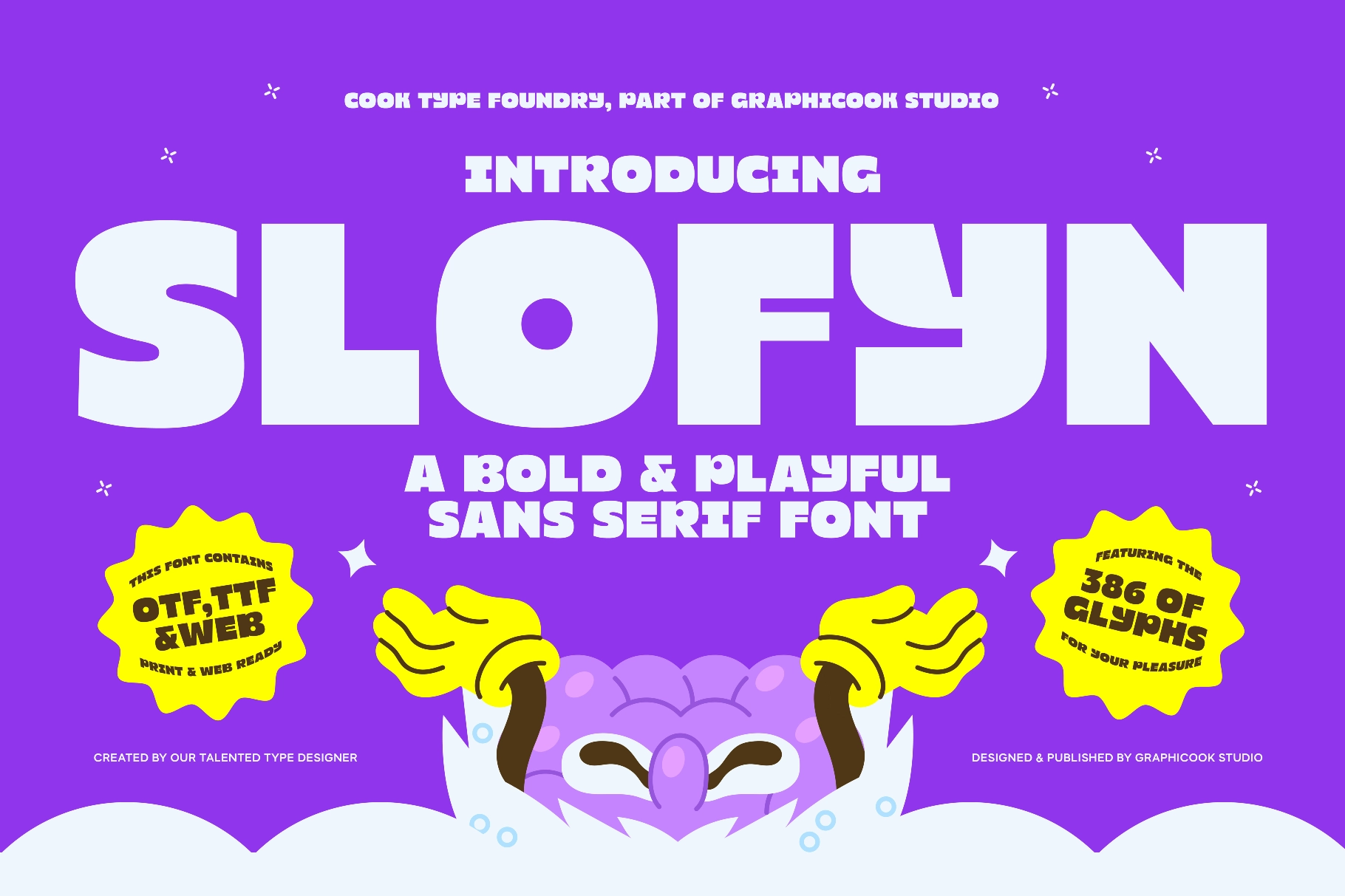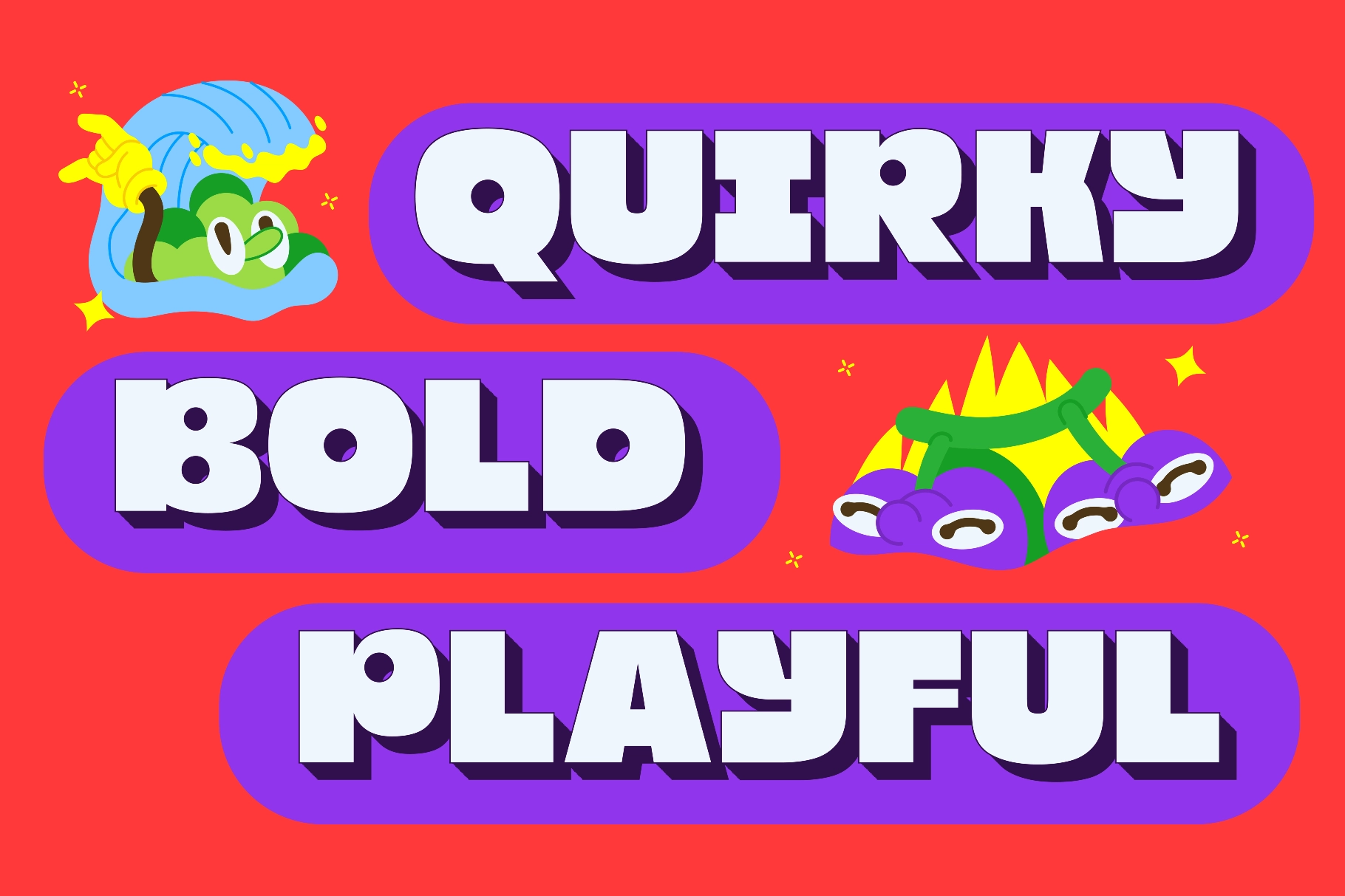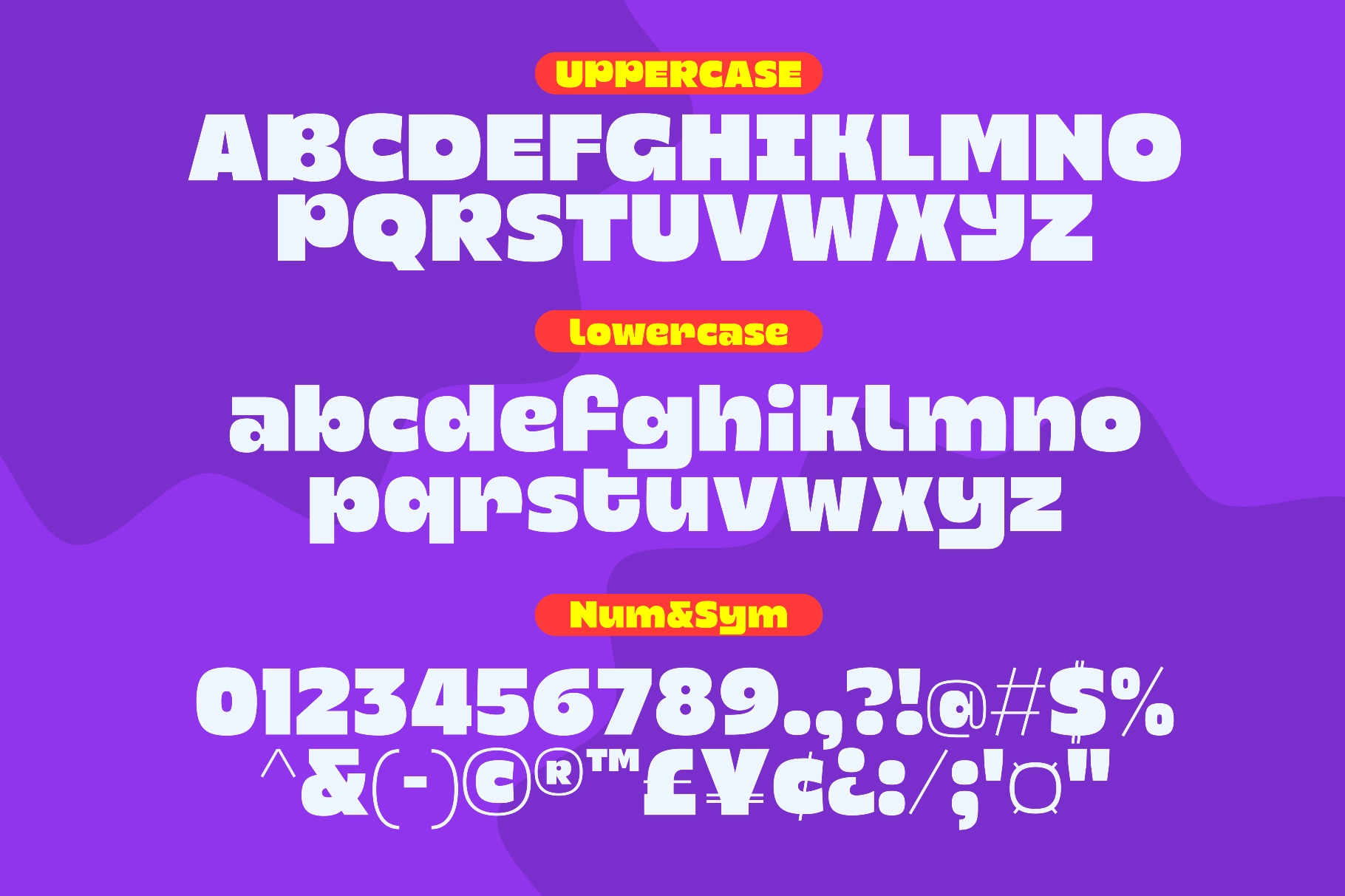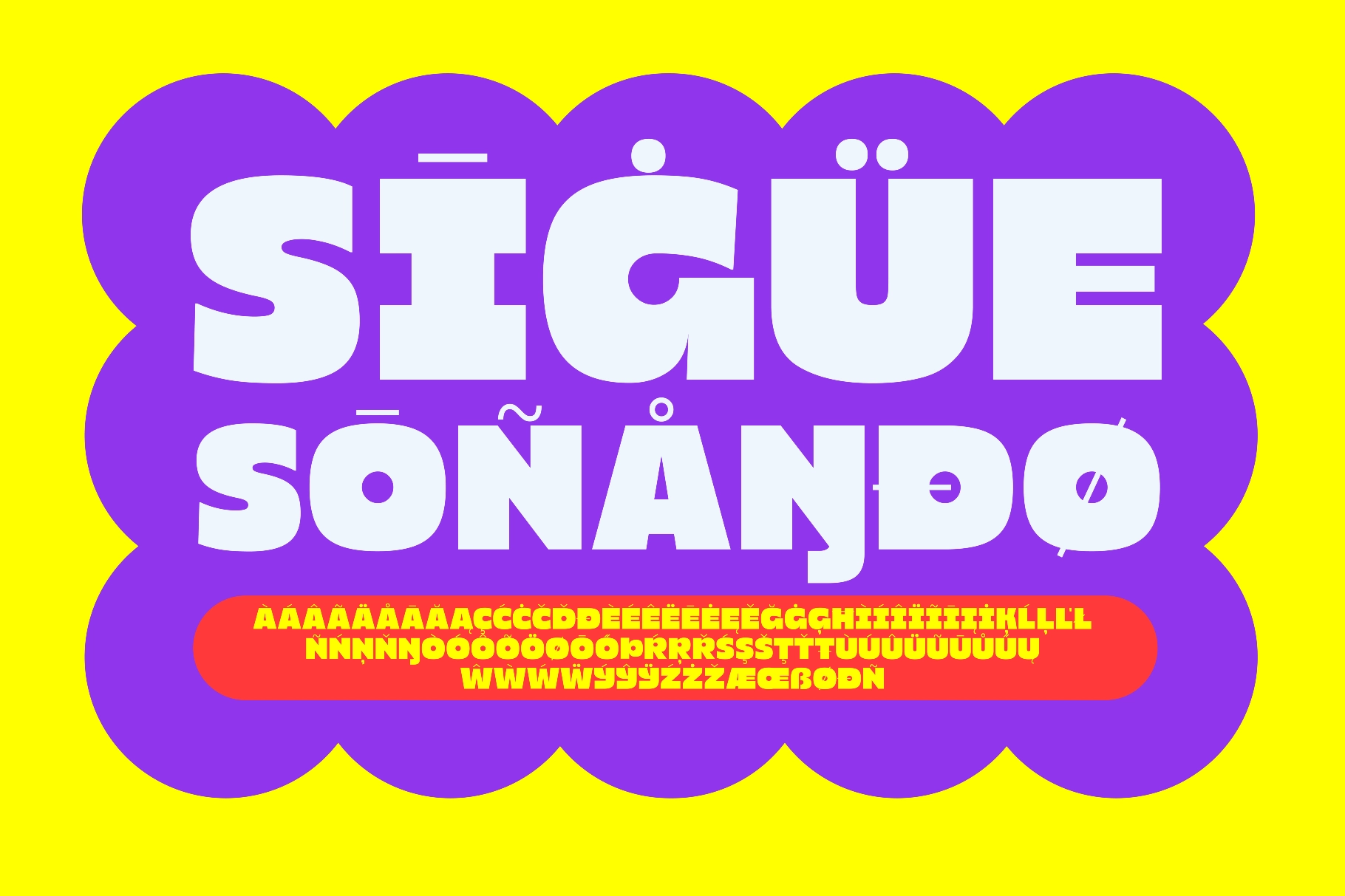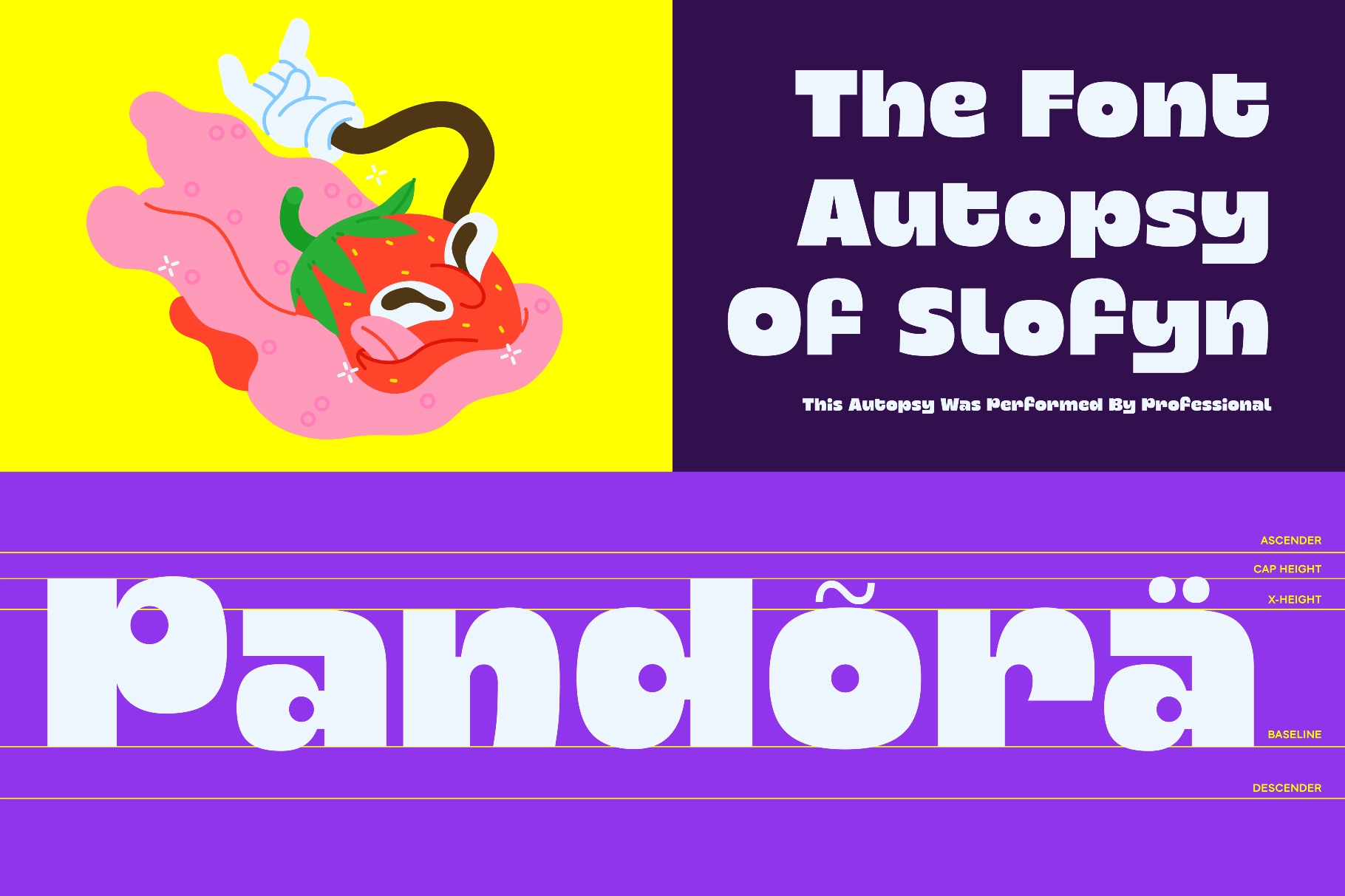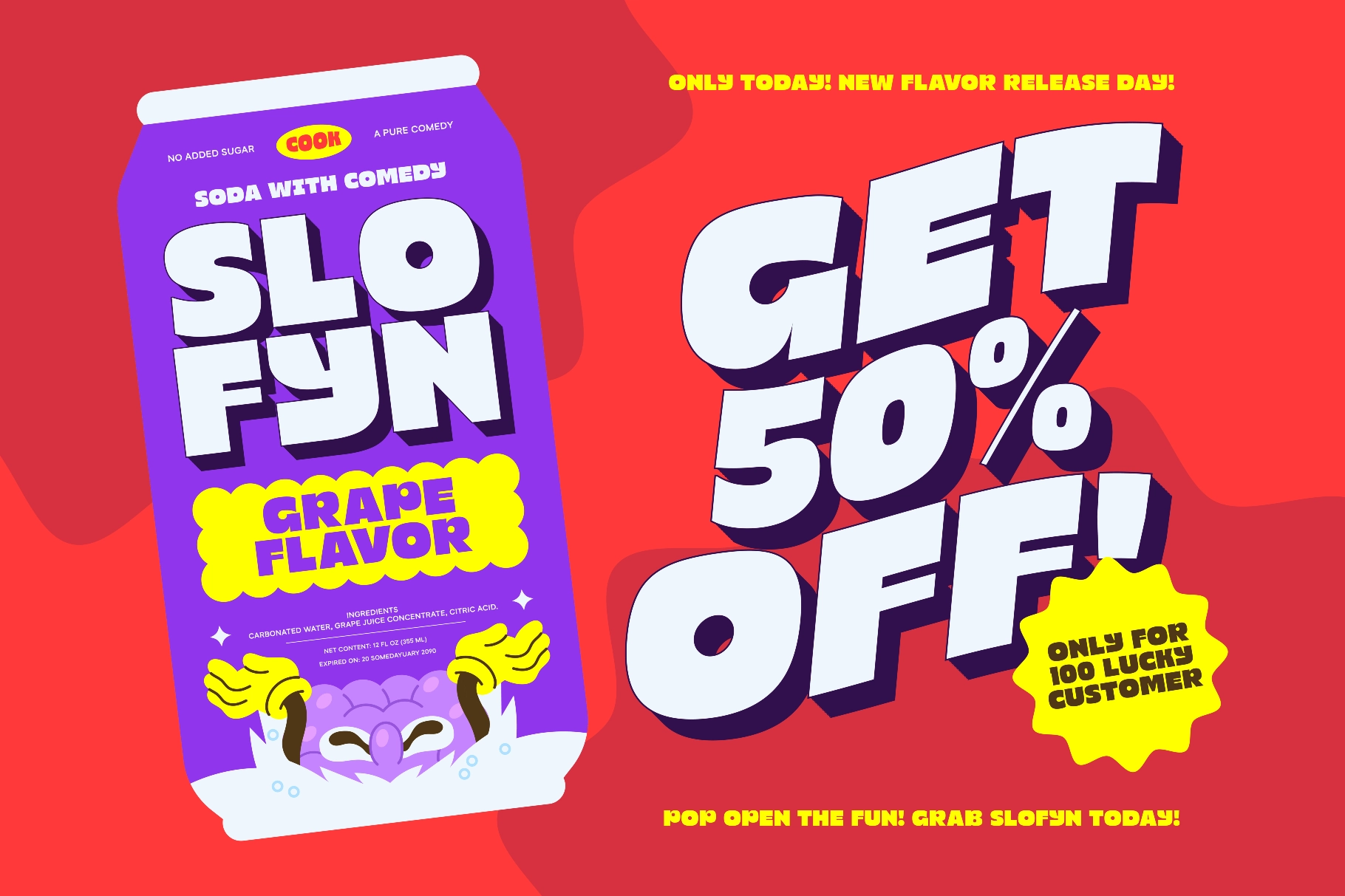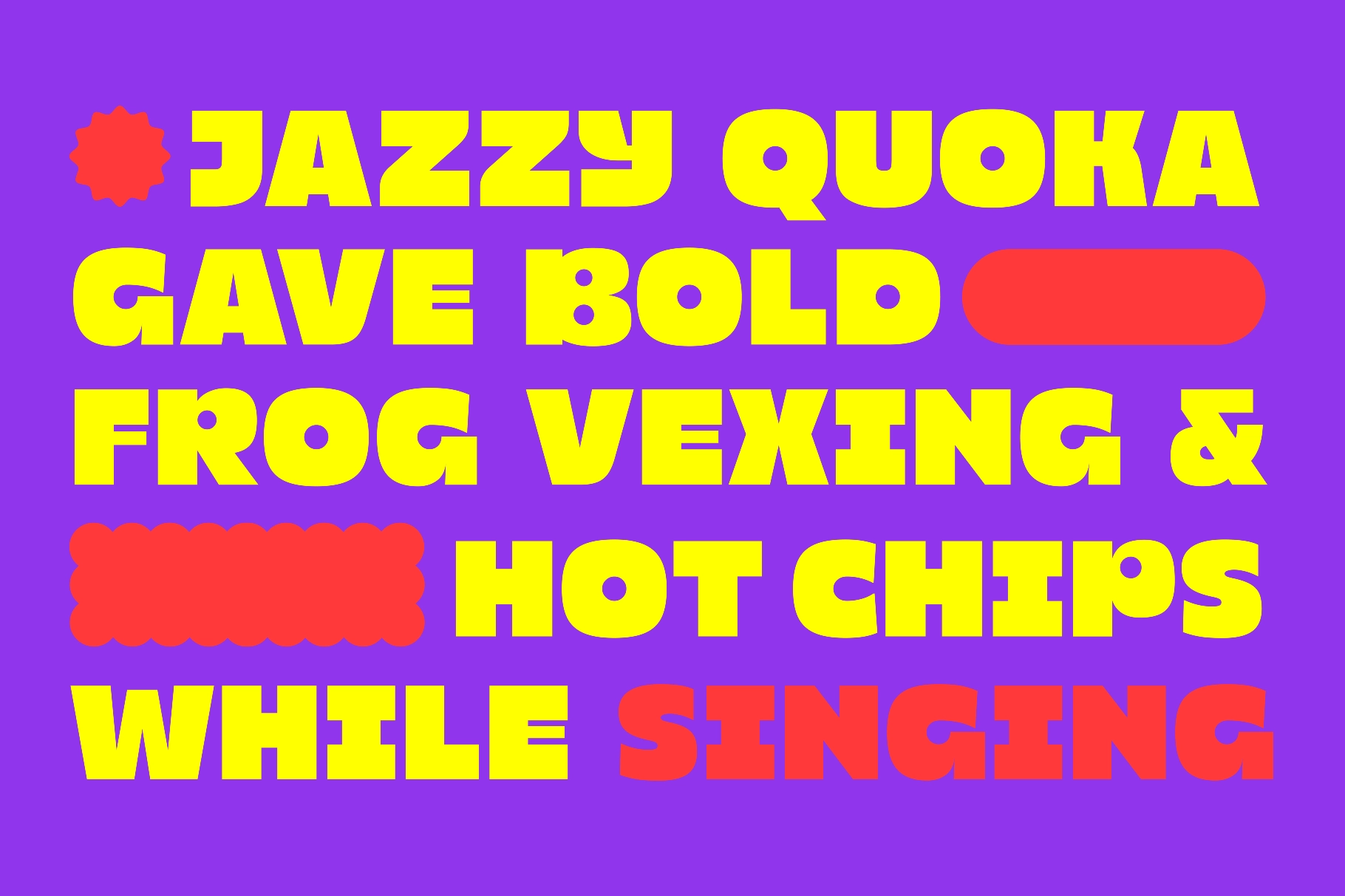
Slofyn Font
Slofyn is a bold, lively sans serif font with unique letterforms and a playful spirit, great for standout headlines, branding, and creative design projects.